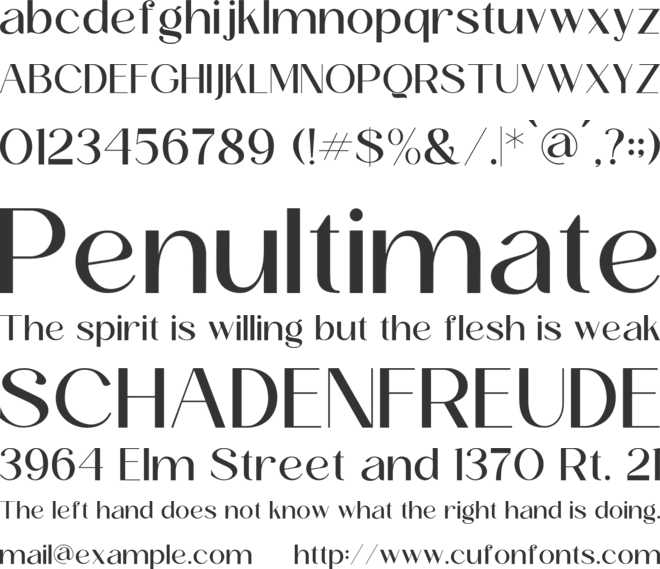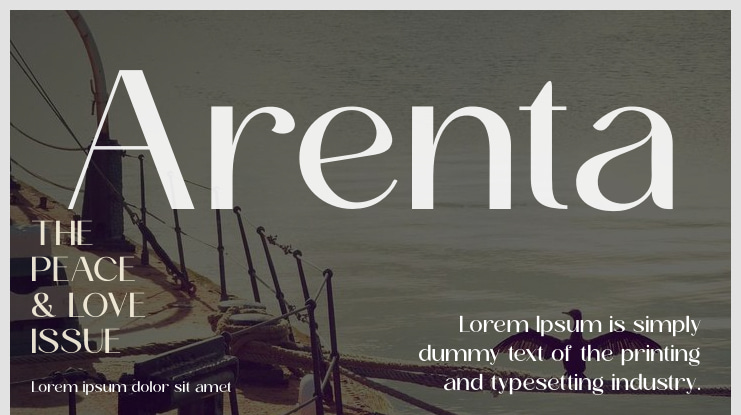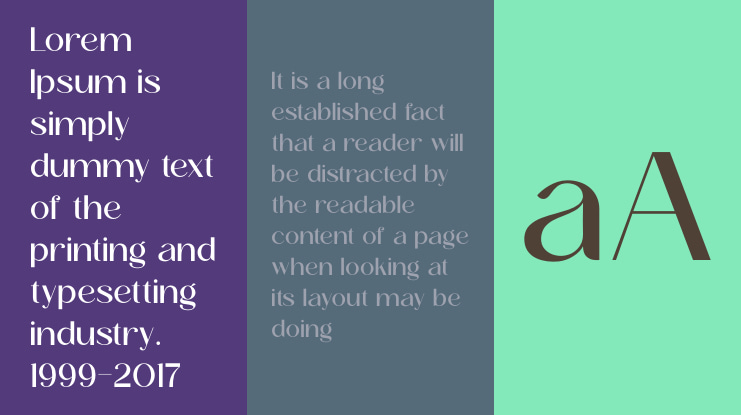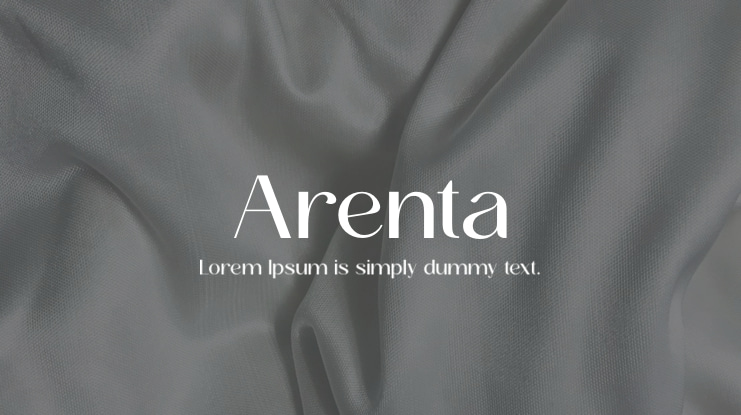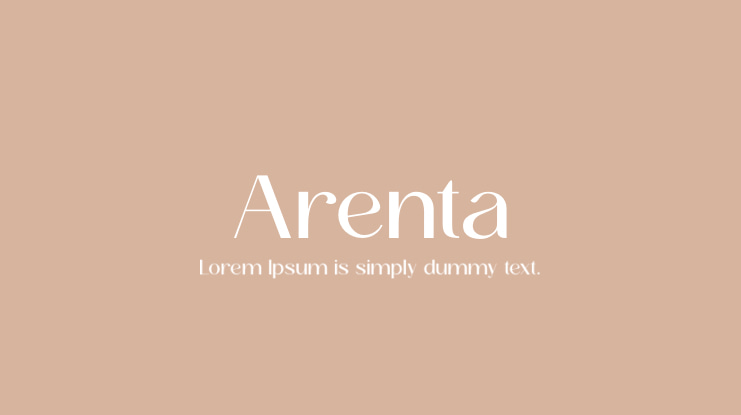
Arenta Font
Arenta is a sleek sans-serif typeface that exudes a modern vibe and exceptional legibility. Its clean lines and harmonious design make it a versatile option for a wide range of design endeavors, including magazine layouts, branding, and web design. The font's refined yet contemporary look guarantees excellent readability on various devices and at different text scales. Arenta offers designers the flexibility to customize text aesthetics to suit their specific project requirements. Whether you need a striking headline font or user-friendly body text, Arenta is an ideal selection for elevating the quality of your design work.